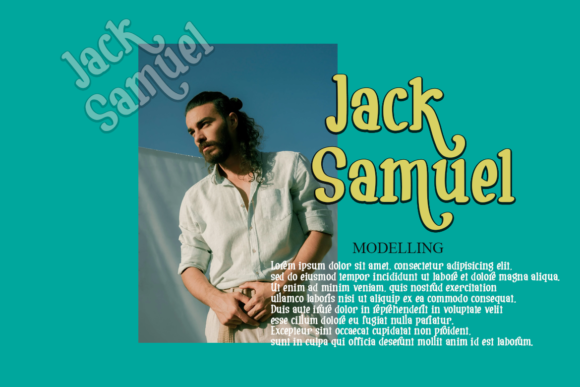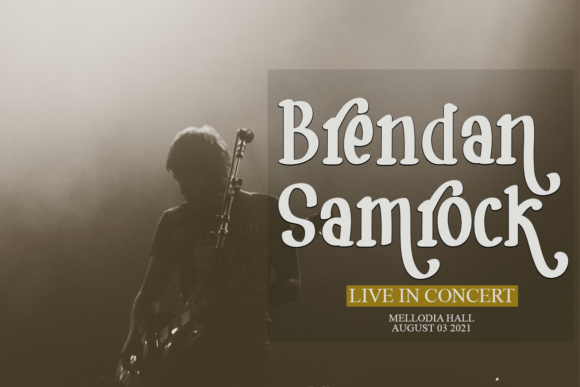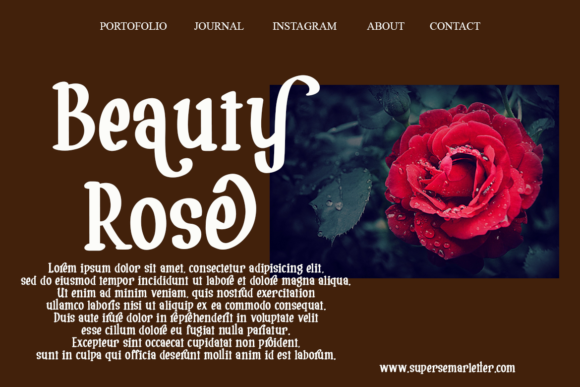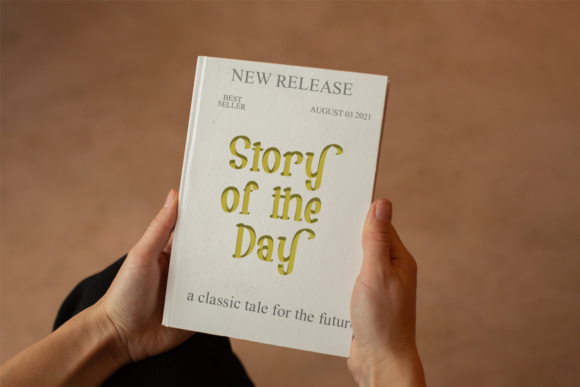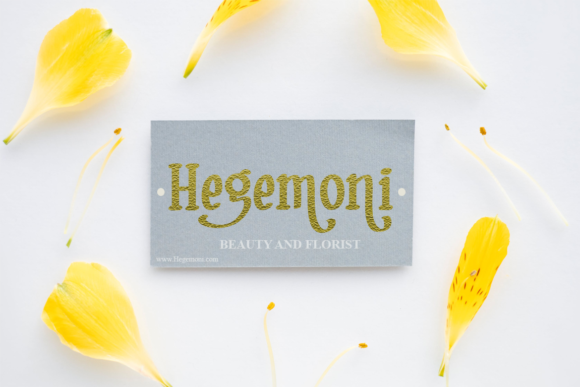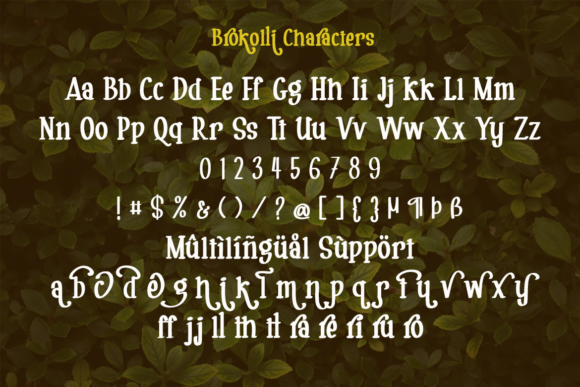
Brokolli Font: Elevate Your Designs with a Vintage Flair
Are you on the hunt for a font that adds a touch of nostalgia and sophistication to your designs? Look no further than Brokolli Font, a stunning vintage-styled slab serif font that’s sure to elevate your creative projects. In this article, we’ll dive into the world of Brokolli Font, exploring its features, benefits, and uses, as well as provide tips on how to make the most of this amazing font.
What is Brokolli Font?
Brokolli Font is a beautifully crafted slab serif font that exudes a vintage charm. Its unique design makes it perfect for a wide range of creative projects, from branding and advertising to packaging and digital media. With its classic look and feel, Brokolli Font is sure to add a touch of elegance and sophistication to any design.
One of the standout features of Brokolli Font is its PUA (Private Use Area) encoding. This means that you can access all glyphs and swashes with ease, giving you complete creative control over your designs. With PUA encoding, you can effortlessly insert special characters, ligatures, and swashes into your text, allowing you to create unique and visually appealing designs.
Features of Brokolli Font
Brokolli Font boasts a range of features that make it an excellent choice for designers and crafters. Some of its key features include:
- Vintage style: Brokolli Font’s classic design makes it perfect for projects that require a nostalgic or retro look.
- Slab serif: The font’s slab serif design adds a touch of sophistication and elegance to any text.
- PUA encoded: Easy access to glyphs and swashes, giving you complete creative control.
- Multilingual support: Brokolli Font supports multiple languages, making it a great choice for international projects.
Uses of Brokolli Font
Brokolli Font is incredibly versatile and can be used in a wide range of creative projects, including:
- Branding and advertising: Use Brokolli Font to create eye-catching logos, posters, and advertisements that stand out from the crowd.
- Packaging design: Add a touch of vintage charm to your product packaging with Brokolli Font.
- Digital media: Use Brokolli Font in your digital projects, such as social media graphics, blog posts, and website designs.
- Crafting and DIY projects: Brokolli Font is perfect for crafters and DIY enthusiasts who want to add a personal touch to their projects.
Tips for Using Brokolli Font
To get the most out of Brokolli Font, here are a few tips to keep in mind:
- Experiment with different sizes and colors: Brokolli Font looks great in a variety of sizes and colors, so don’t be afraid to experiment and find the perfect combination for your design.
- Use it with contrasting fonts: Pair Brokolli Font with a contrasting font to create visual interest and add depth to your design.
| Font Name | Brokolli Font |
| Author | Supersemar Letter |